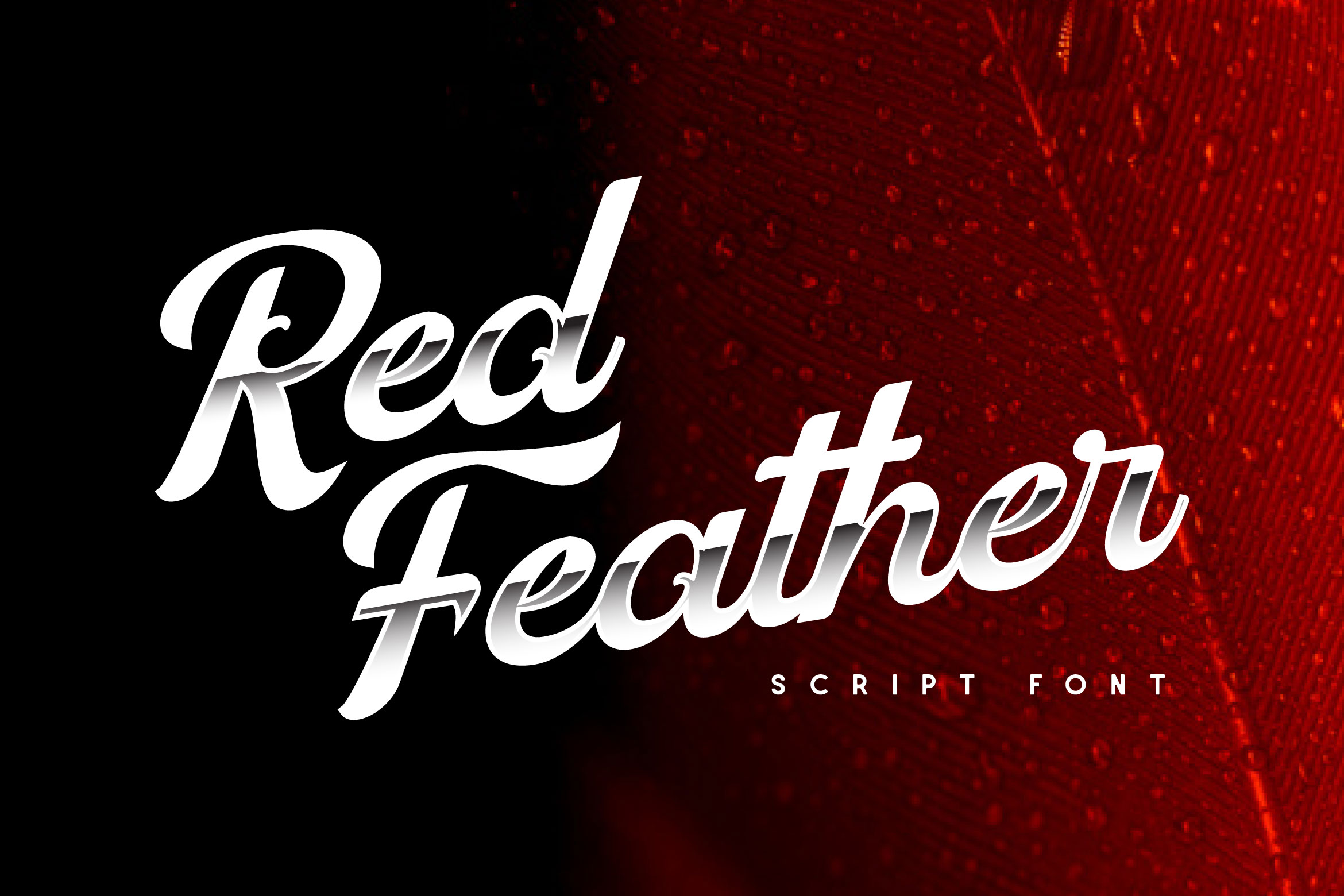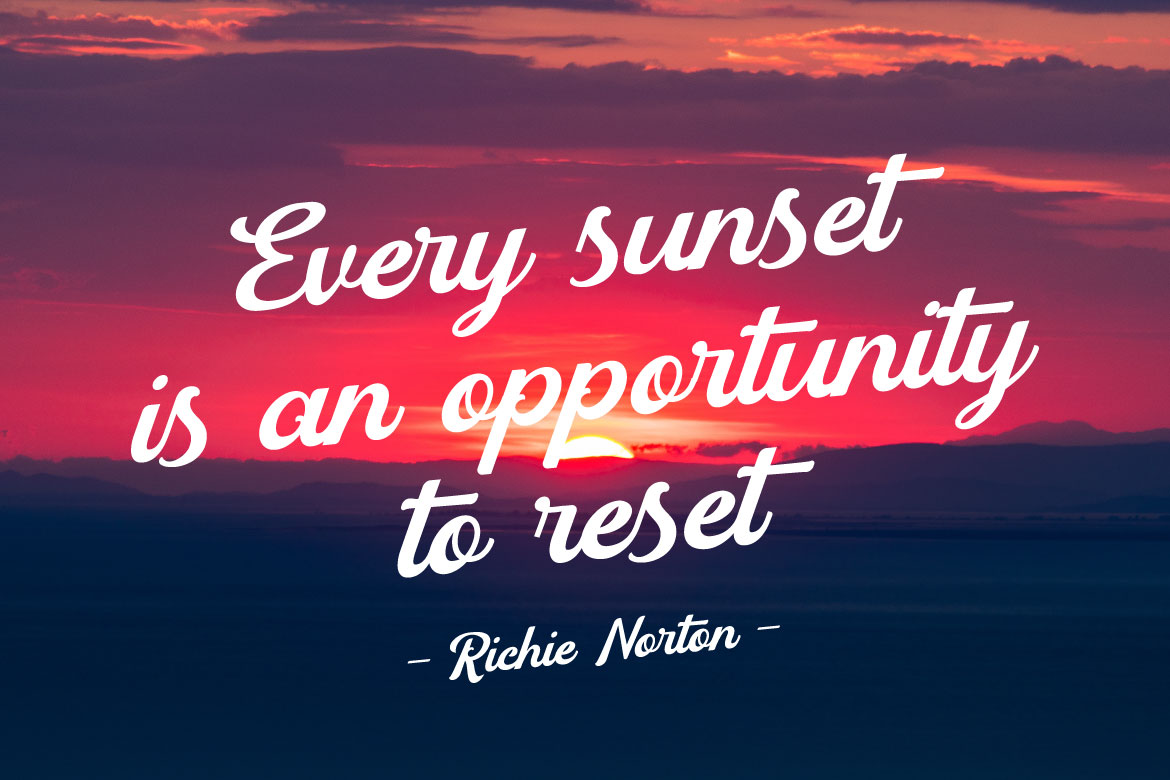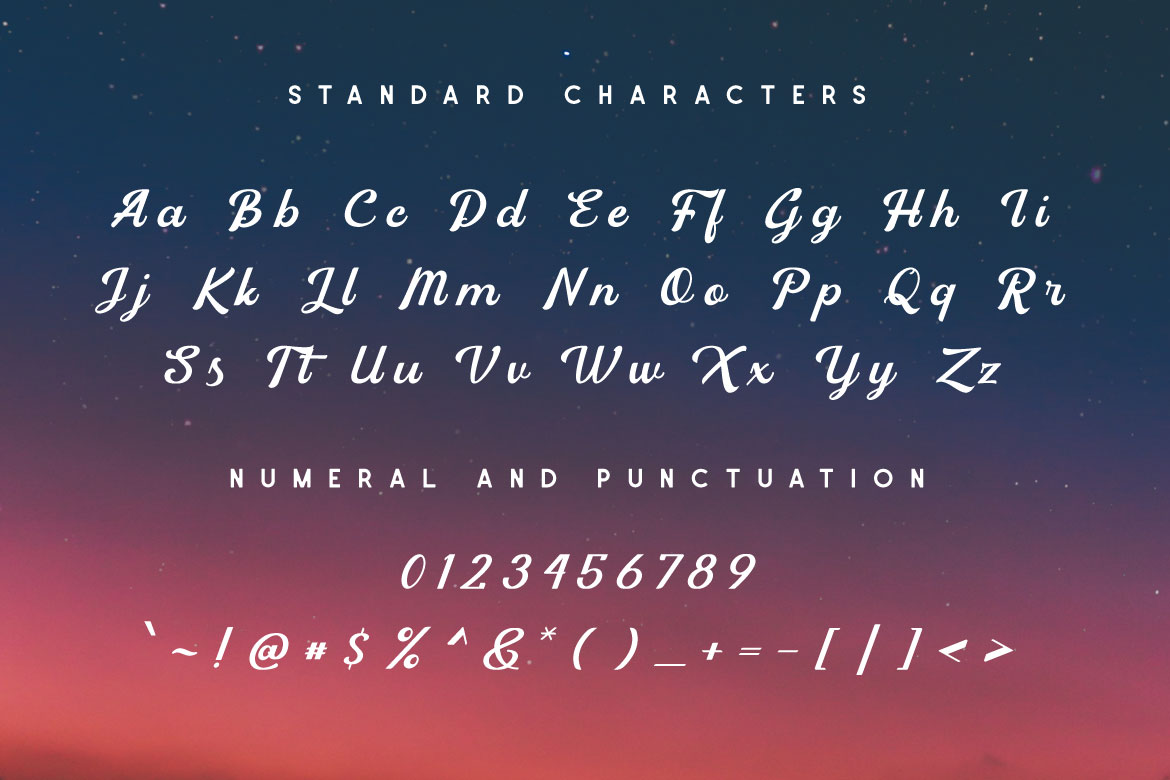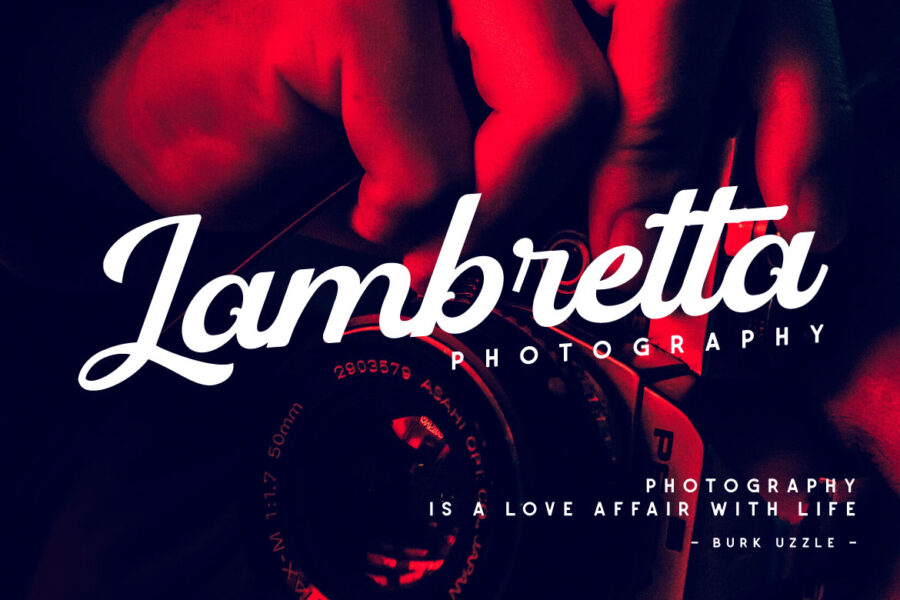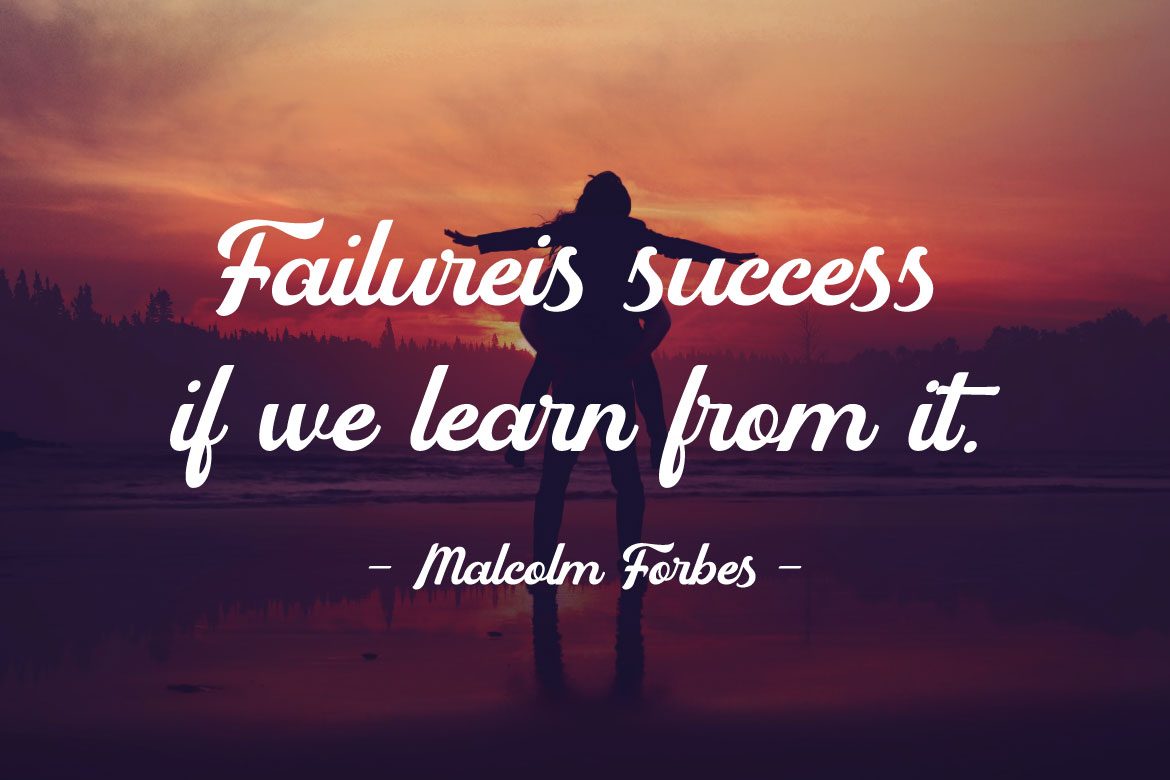
Red Feather
Introducing Red Feather, a bold and elegant script font that blends vintage charm with modern fluidity. Designed with sweeping curves and smooth ligatures, Red Feather is perfect for creating standout logotypes, expressive quotes, and sophisticated packaging. Its high contrast strokes and playful swashes give every word a dynamic presence, making it ideal for branding and storytelling alike.
Whether you’re designing promotional graphics, wedding invitations, or stylish headlines, Red Feather offers versatility and character in every letter. With full uppercase, lowercase, numerals, and punctuation, this font delivers professional polish while retaining a handcrafted spirit. Let Red Feather elevate your design with its timeless charm and bold expression.